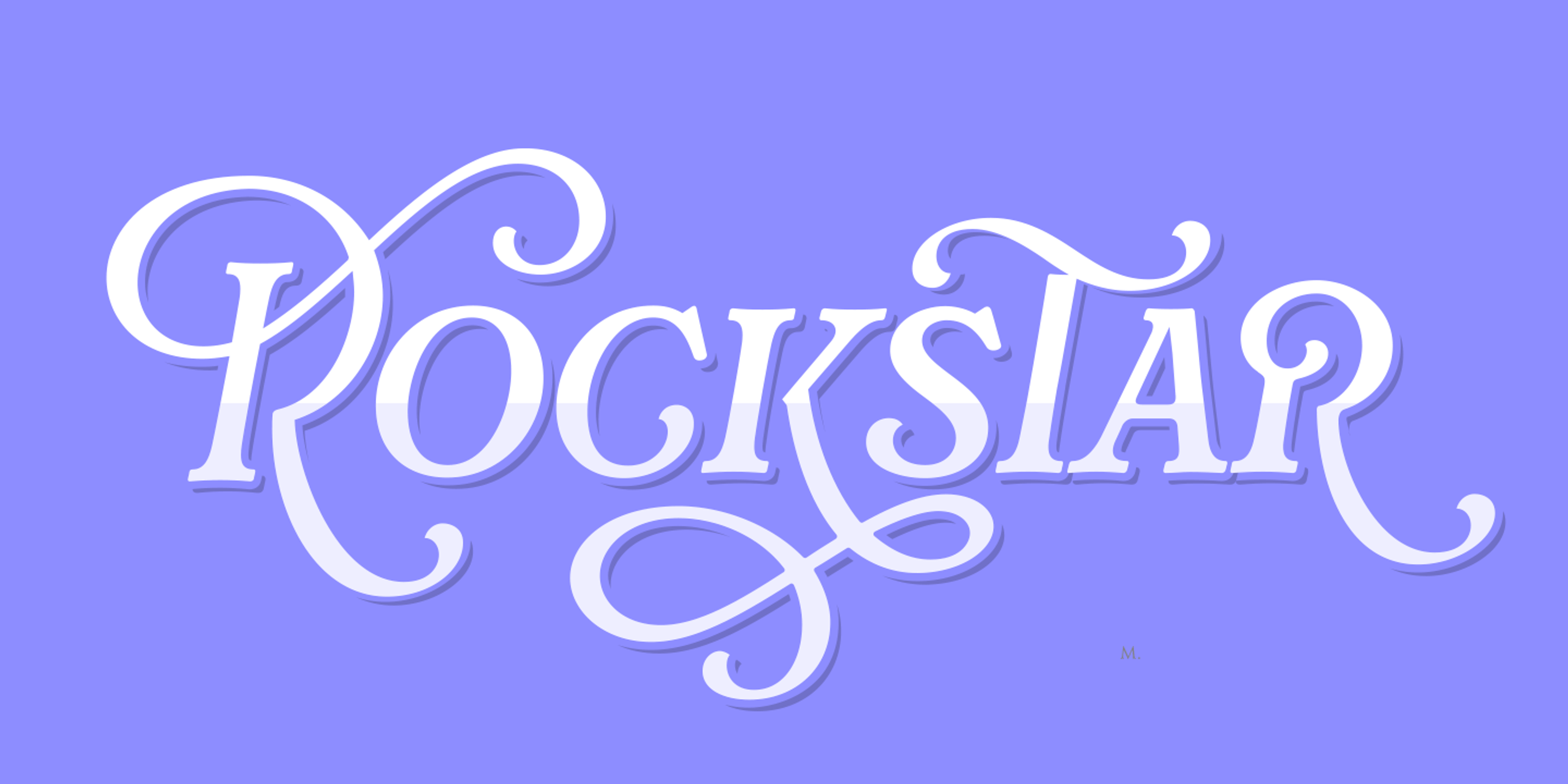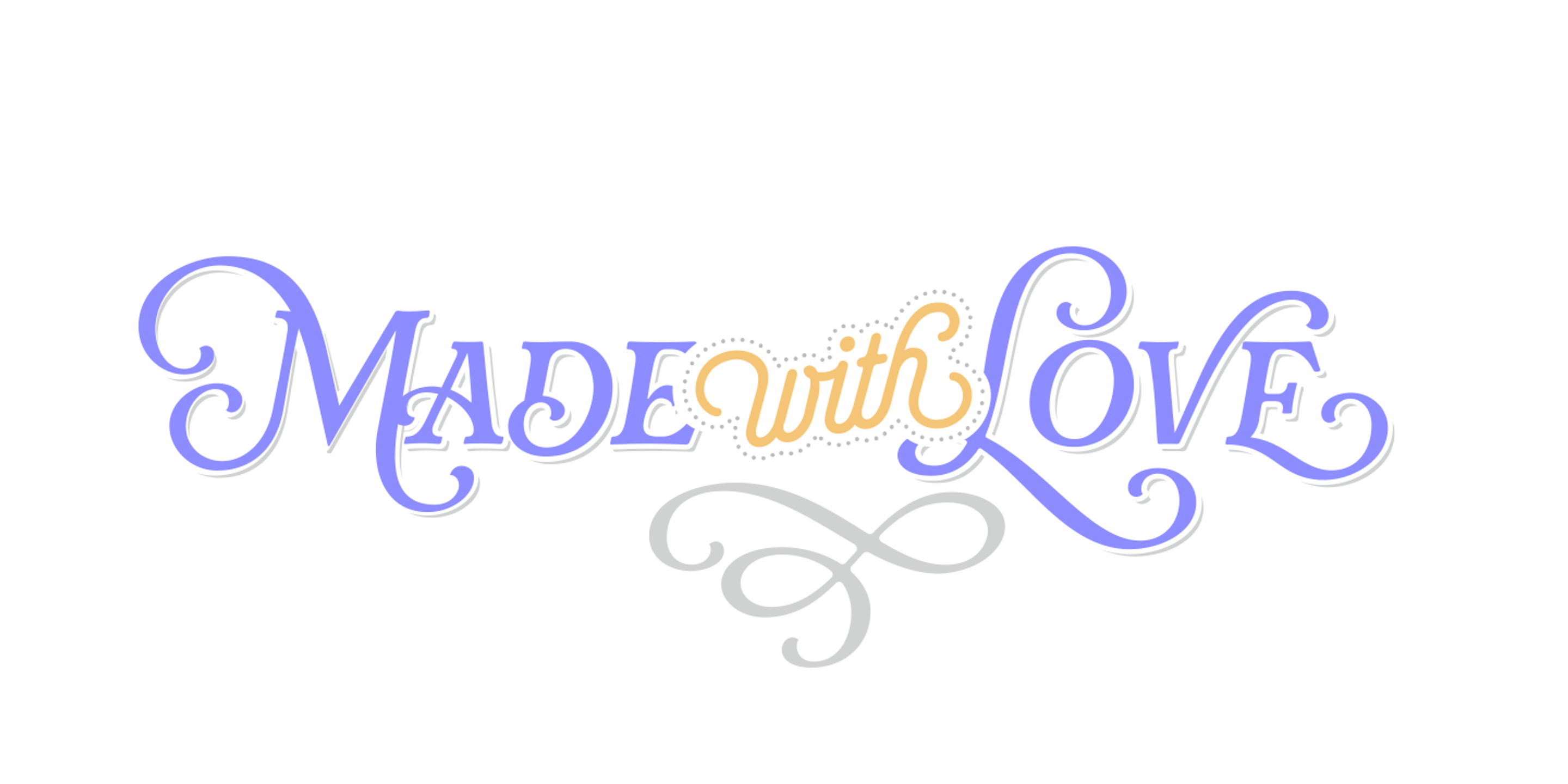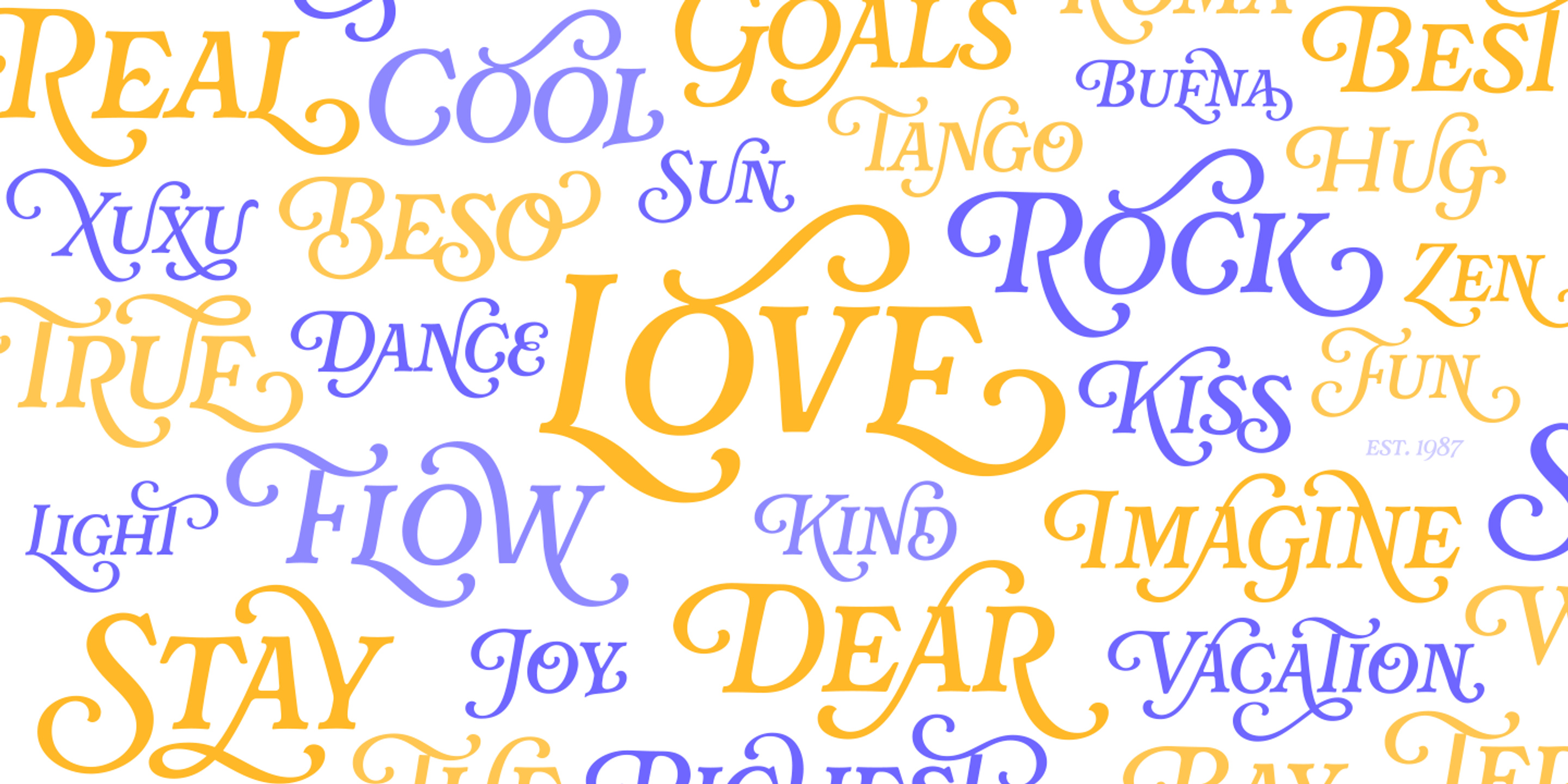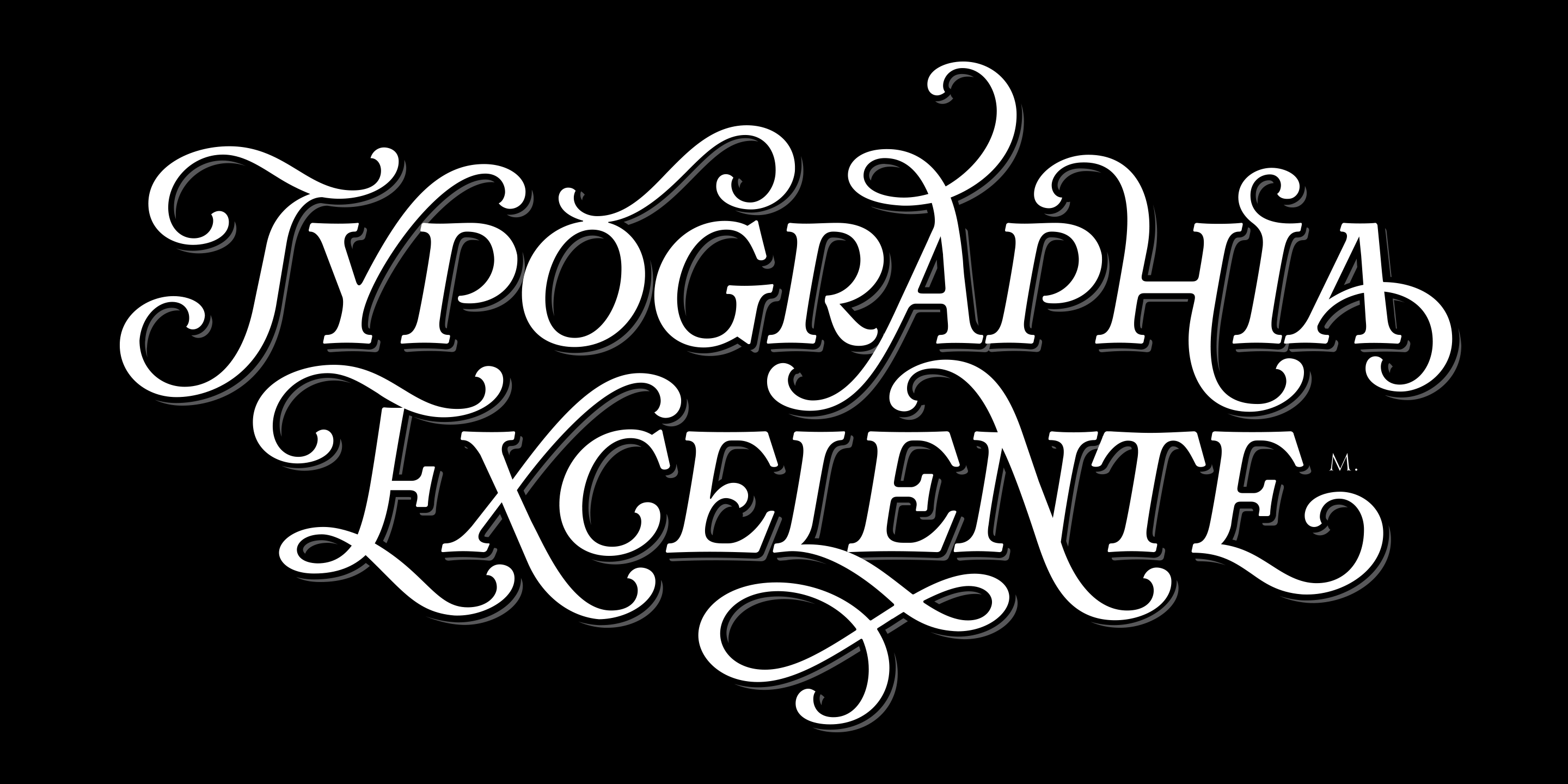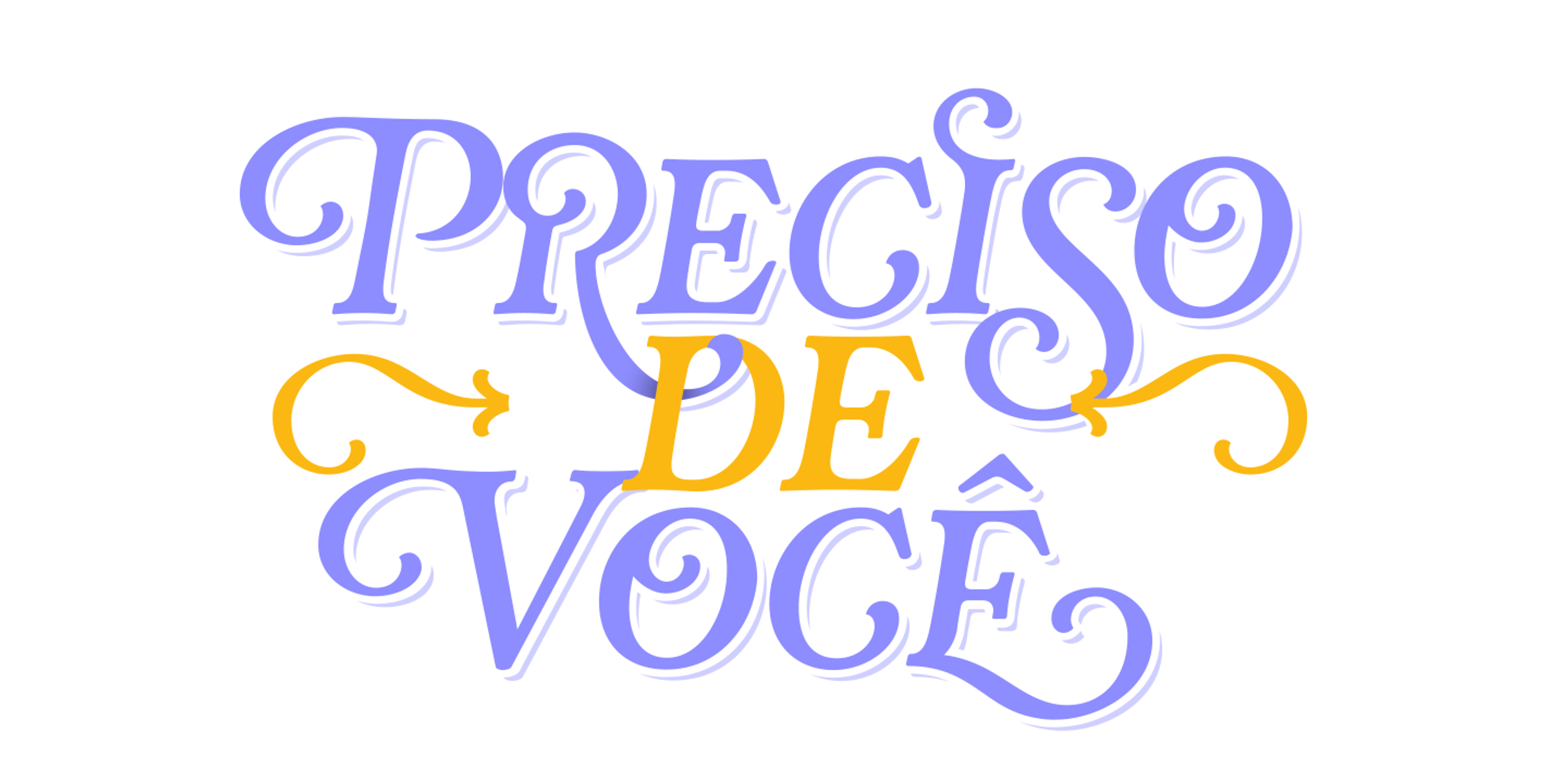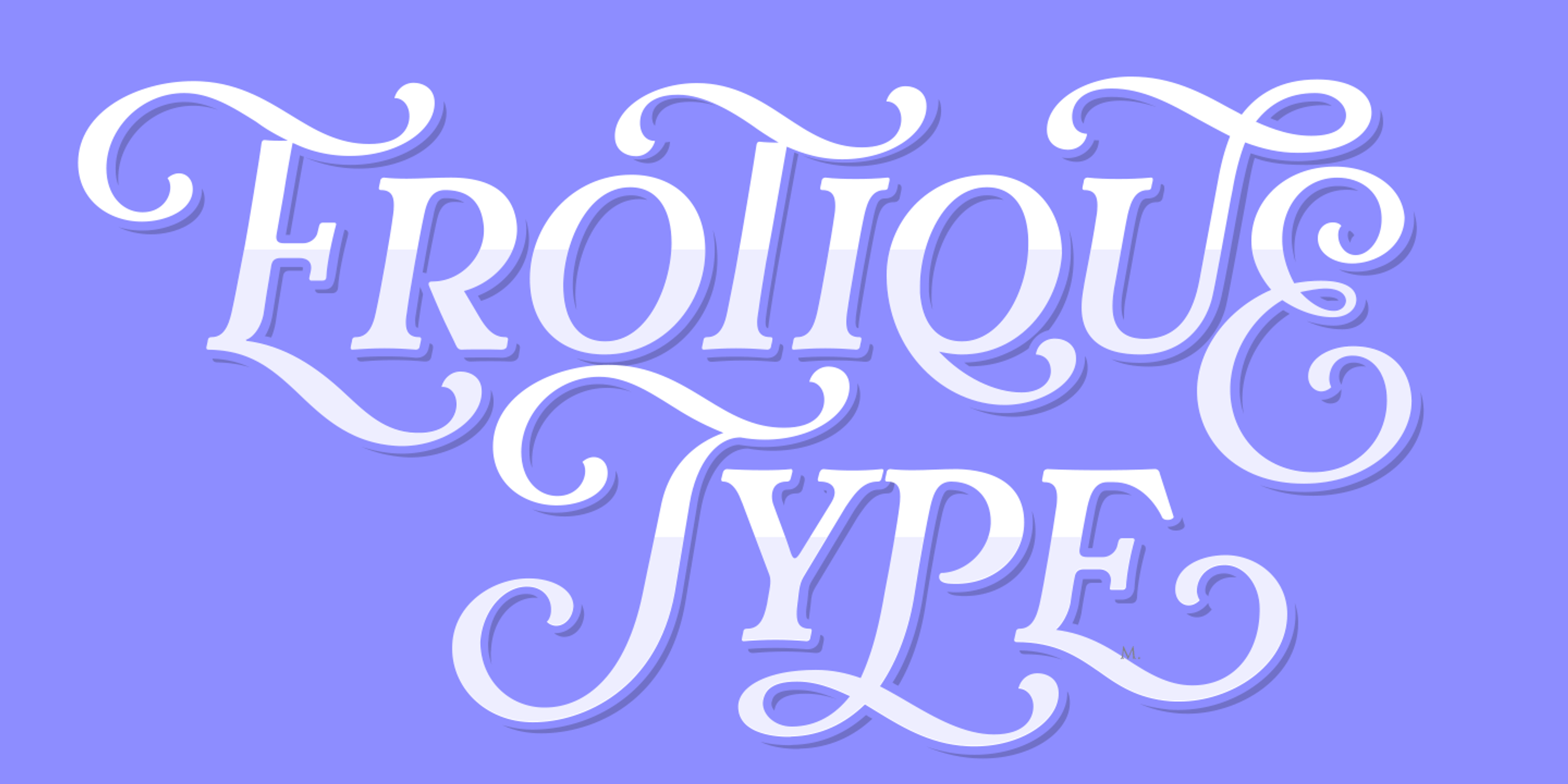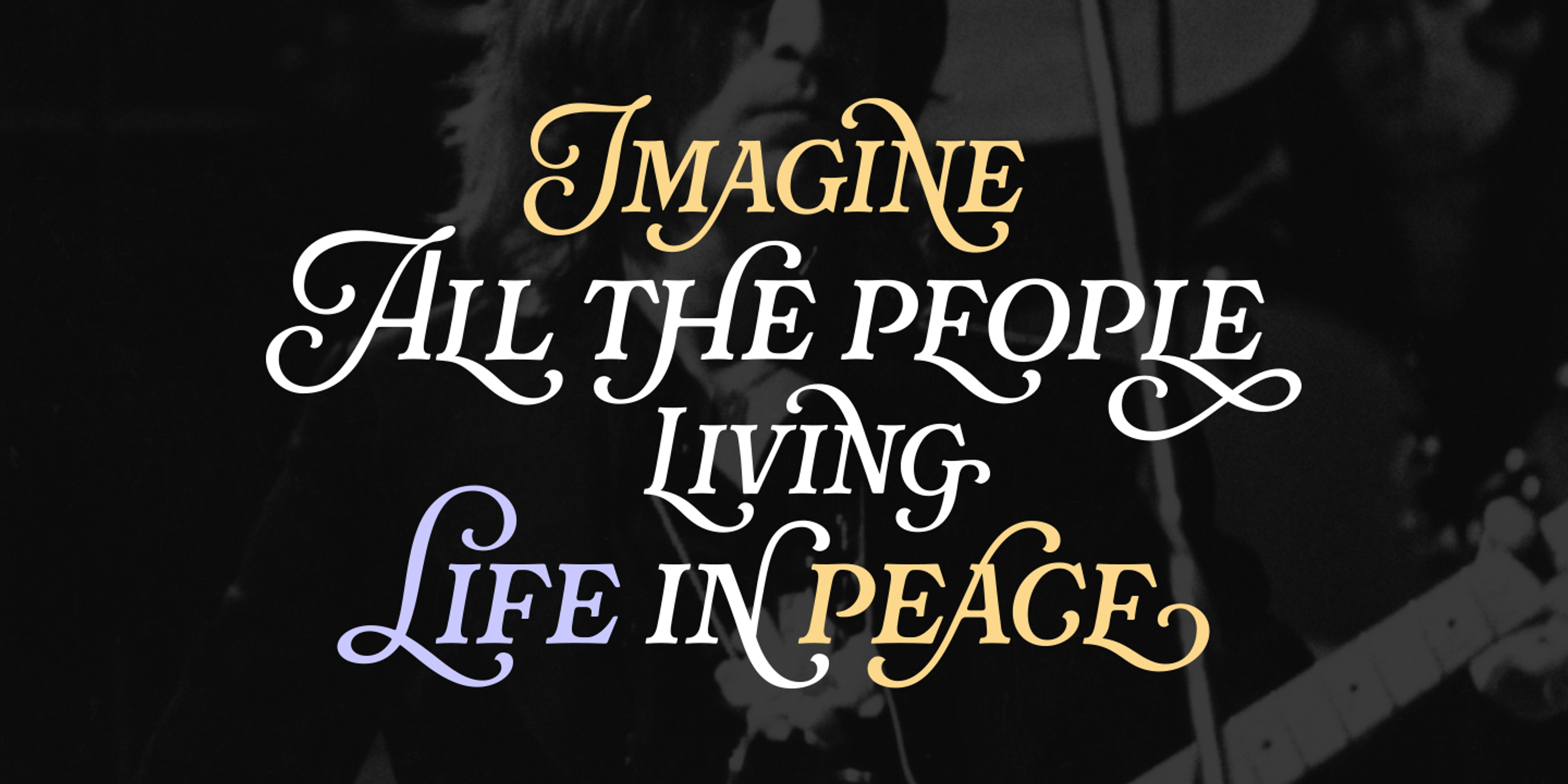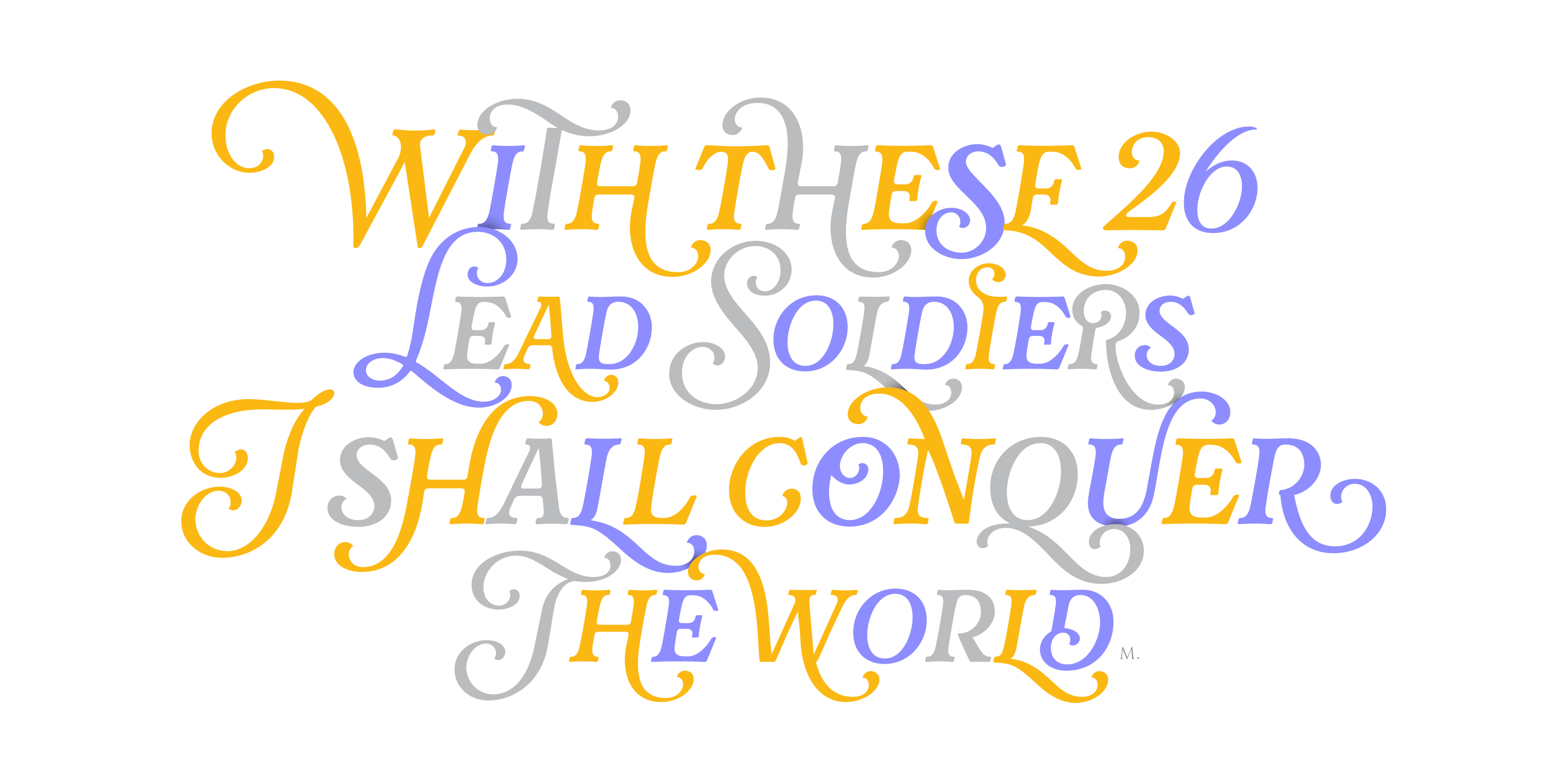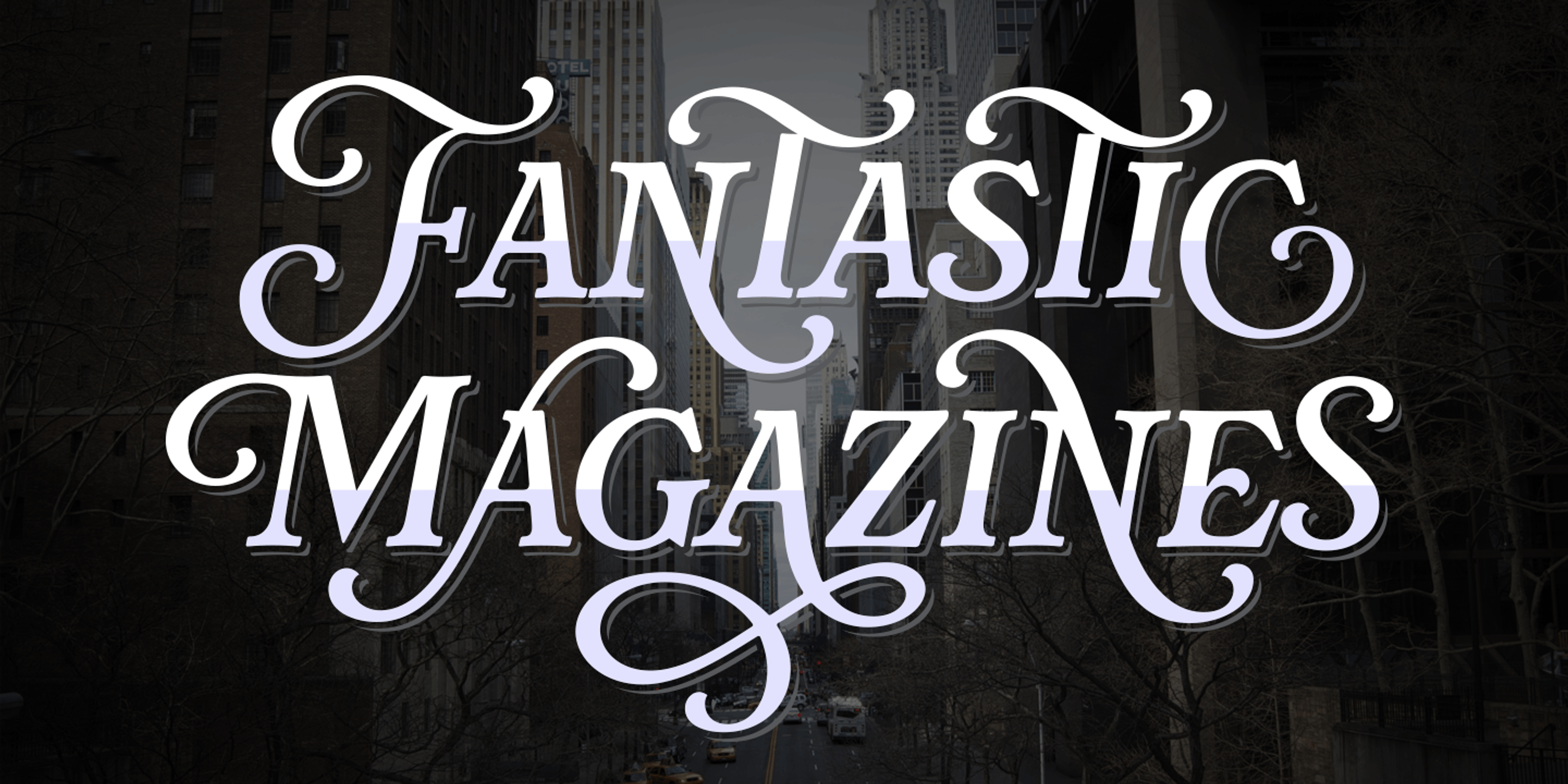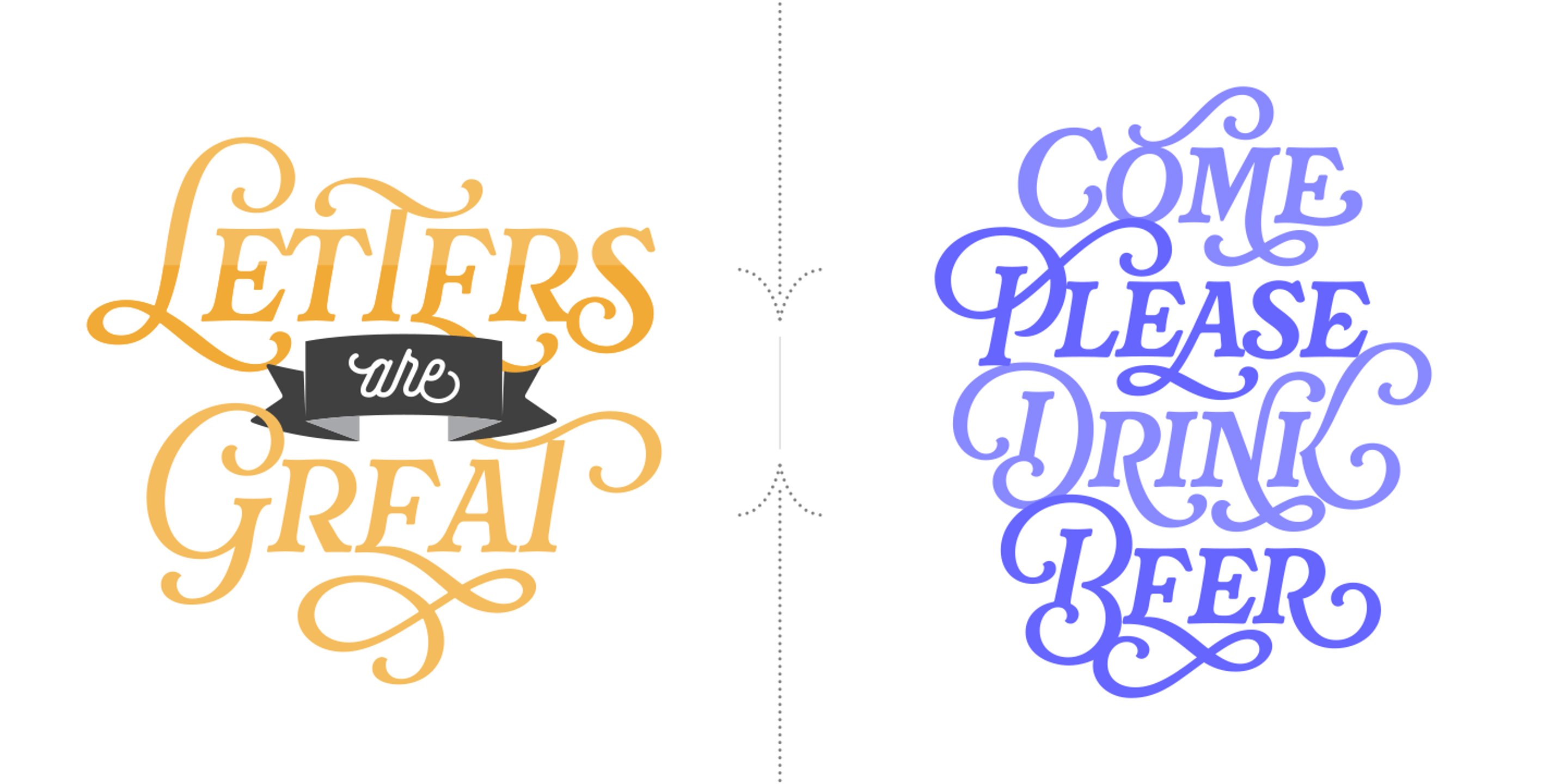
Rafaella font by Sproviero Type — the word “ROCKSTAR” in white, shadowed, high-contrast serif capitals with swash details and connected letters, on a light purple background
Rafaella font by Sproviero Type — the words “TYPOGRAPHIA EXCELENTE” in a decorative serif display face with swashes and a dimensional shadow effect
Rafaella font by Sproviero Type — the words “PRECISO” and “VOCÊ” in purple serif capitals with decorative swashes, and the word “DE” in yellow serif capitals, with yellow swash arrows pointing to the E in “PRECISO” and the O in “VOCÊ”
Rafaella font by Sproviero Type — the words “FROLIQUE TYPE” in a decorative serif display face with swash capitals and a drop shadow
Rafaella font by Sproviero Type — the words “Imagine All the People Living Life in Peace” in a decorative serif display face with swash capitals, set in three different colors.
Rafaella font by Sproviero Type — the words “WITH THESE 26 LEAD SOLDIERS I SHALL CONQUER THE WORLD” in a decorative, all-caps serif face with swashes and ball terminals, alternating between gold, light purple, and gray.
Rafaella font by Sproviero Type — the words “Fantastic Magazines” in a decorative, swashy serif display face with a shadow effect, set against a blurred city background
Rafaella font by Sproviero Type — the words “LETTERS are GREAT” in orange serif capitals with swashes, and “COME PLEASE DRINK BEER” in blue serif capitals with swashes
Rafaella font by Sproviero Type — the words “THERE’S NOTHING YOU CAN’T DO” in light gray above “NEW YORK” in black with a shadow effect, and “EST. 1987” below, all in a decorative serif style with swashes.
Rafaella font by Sproviero Type — the words “Made with Love” in a decorative, swashy script, with “Made” and “Love” in purple and “with” in orange, all with a subtle shadow effect, and a gray swash beneath.
Rafaella font by Sproviero Type — a repeating pattern of upright serif words in orange and purple, including “LOVE”, “ROCK”, and “IMAGINE”
Rafaella is a lively all-caps display face with vintage flair. Inspired by 1970s Bookman-style lettering, its expressive serifs, ball terminals, and decorative swashes strike the right balance between formal structure and playful attitude. With Regular, Bold, Shadow, Shadow Solo, and a handy set of Flags, this family brings class and style to packaging, posters, logos, book covers, and advertisements, to name a few. Anywhere your words need typographic warmth and charm, consider Rafaella.
• Ornaments
• Stylistic Alternates
• Stylistic Sets
• Swashes
• Titling Capitals